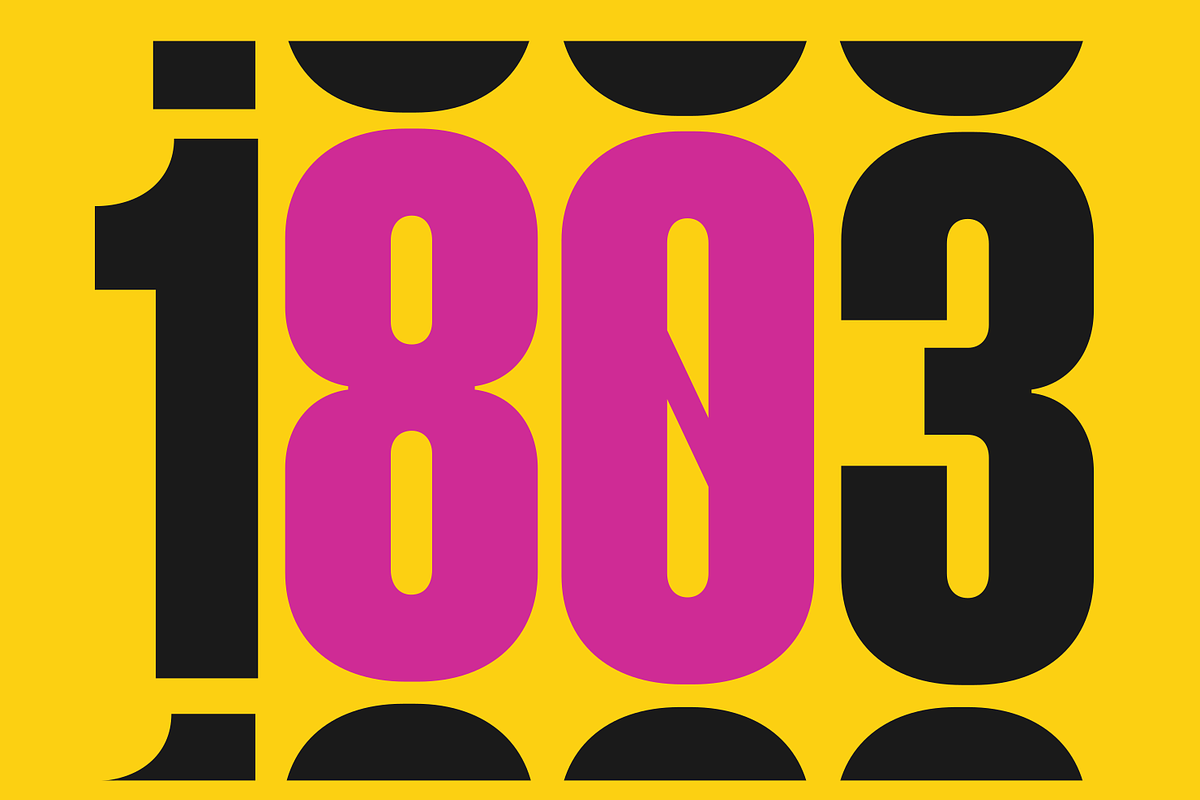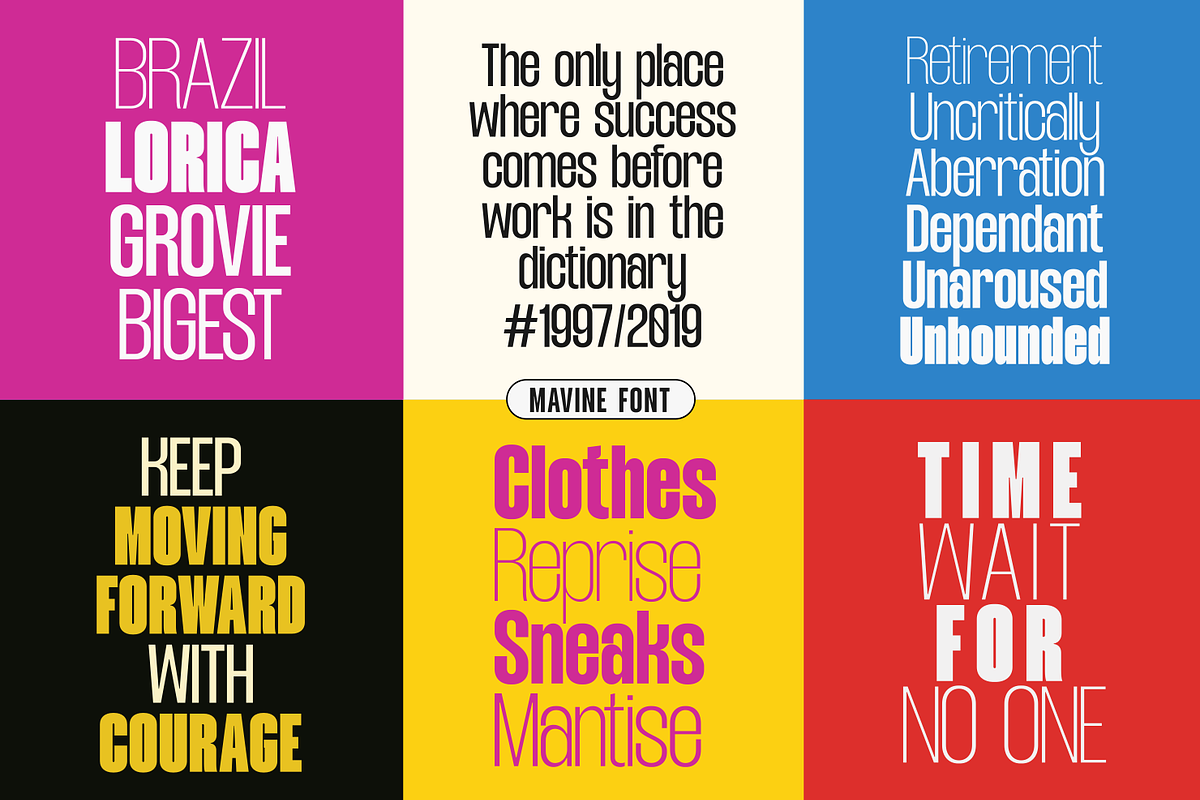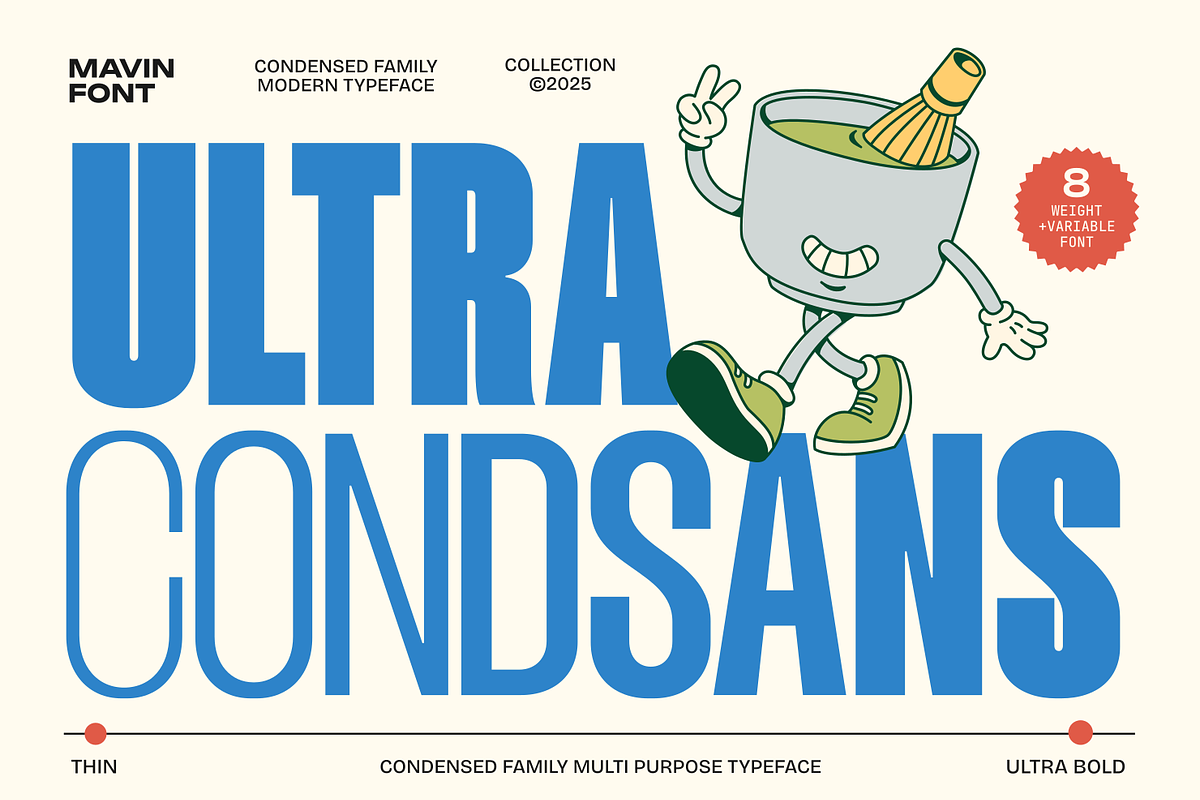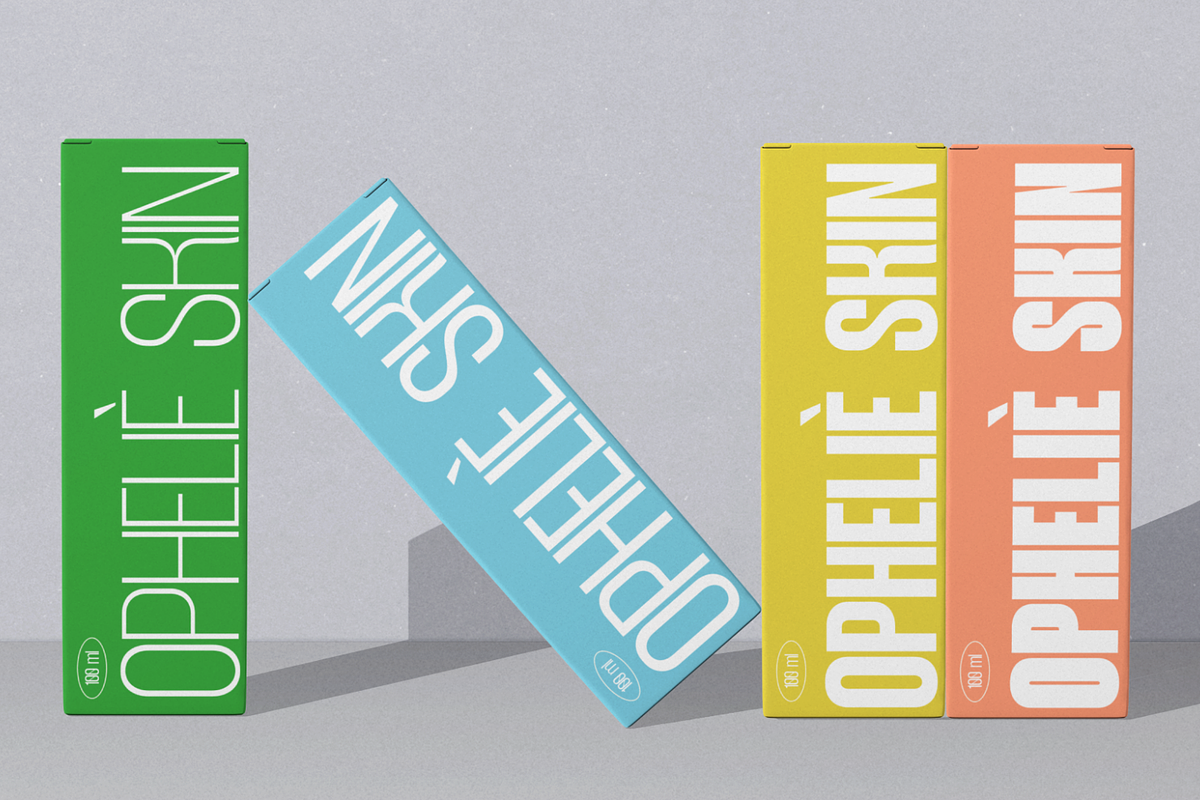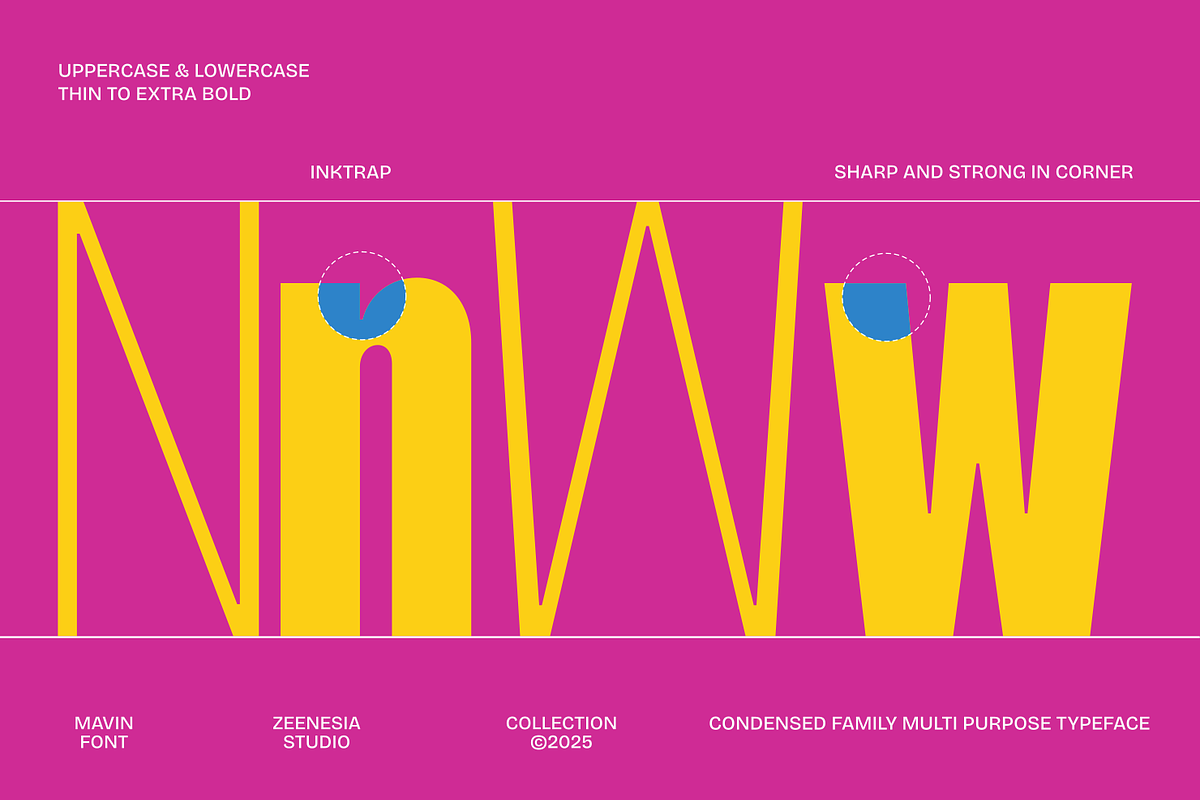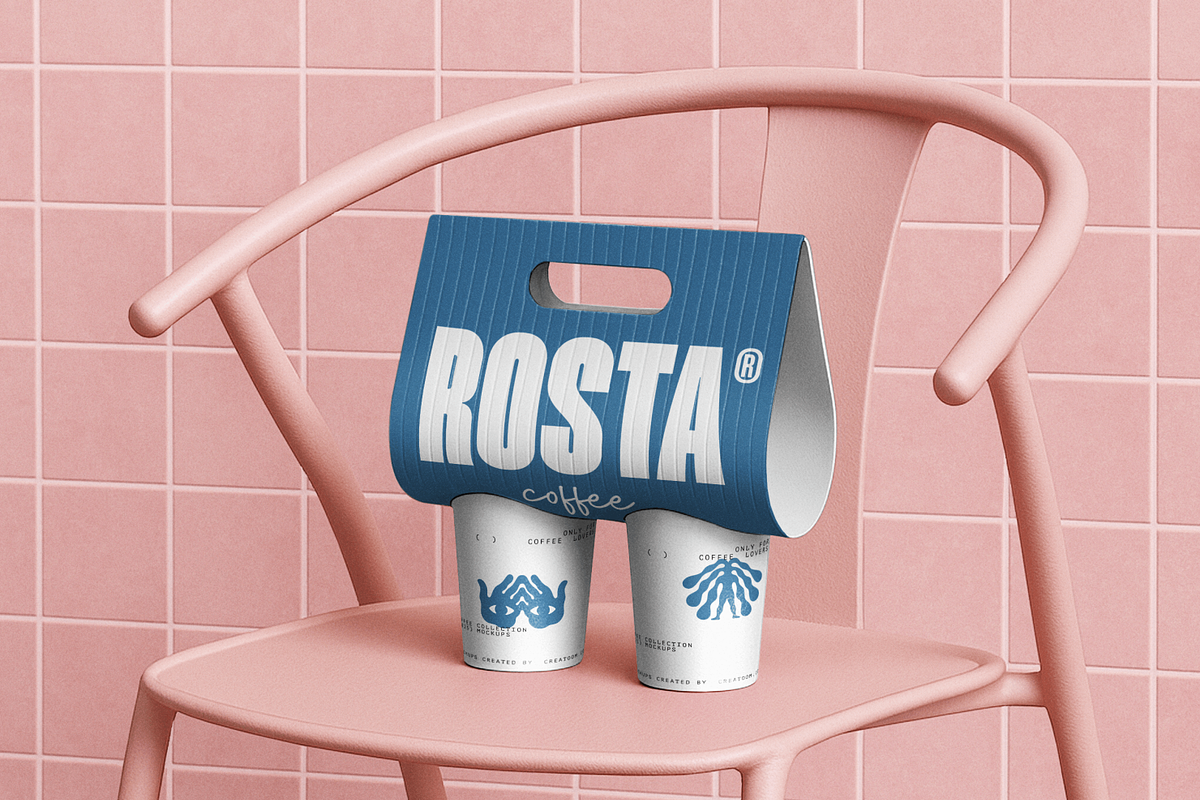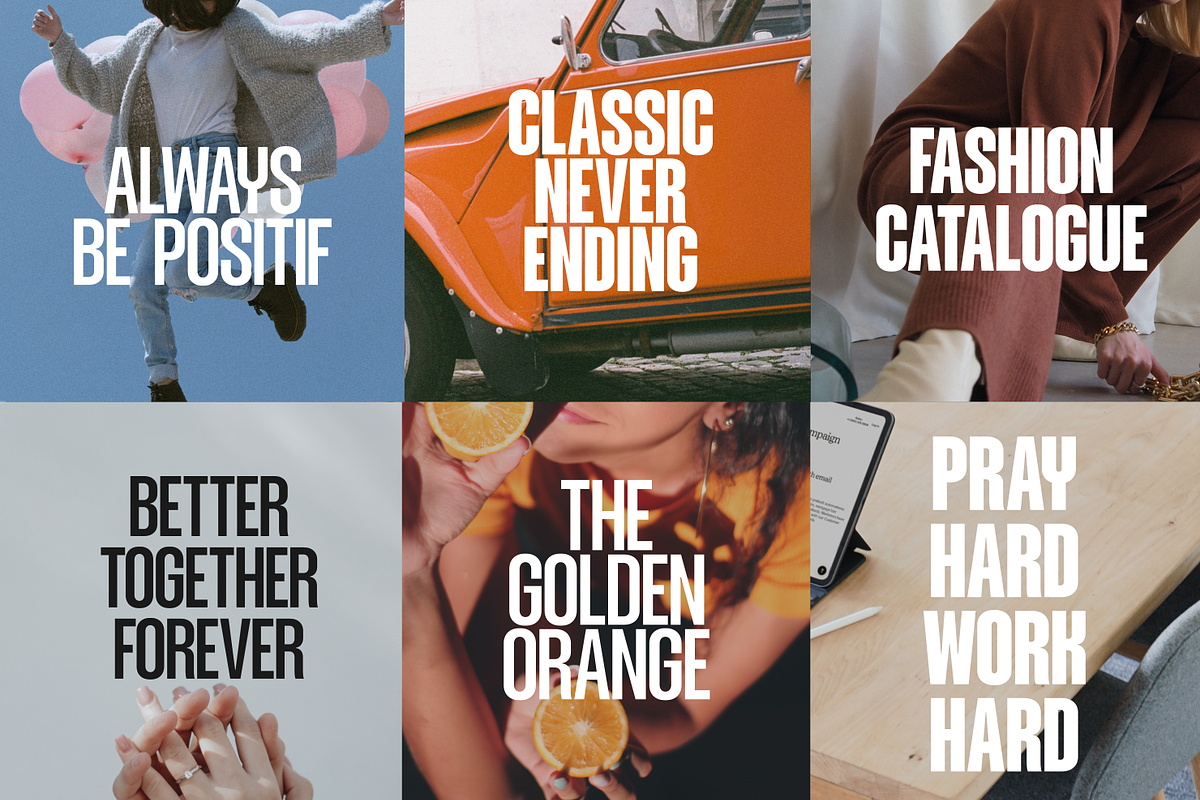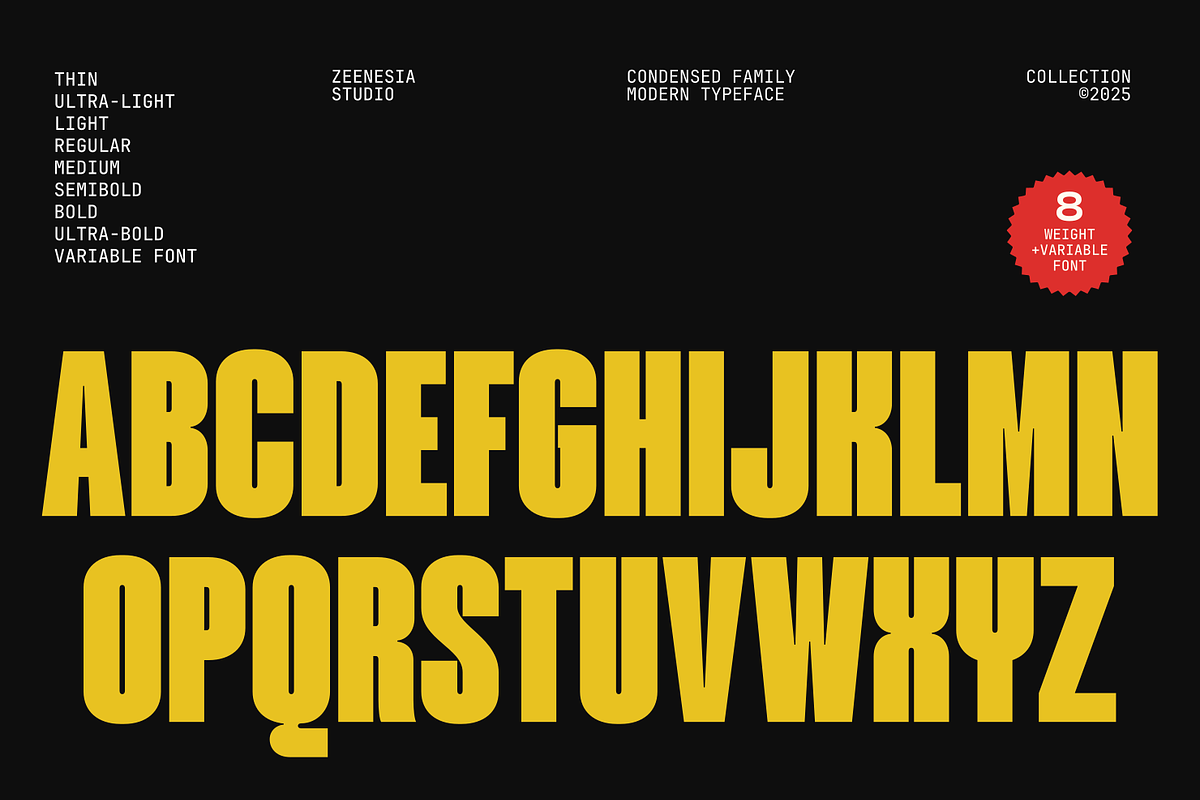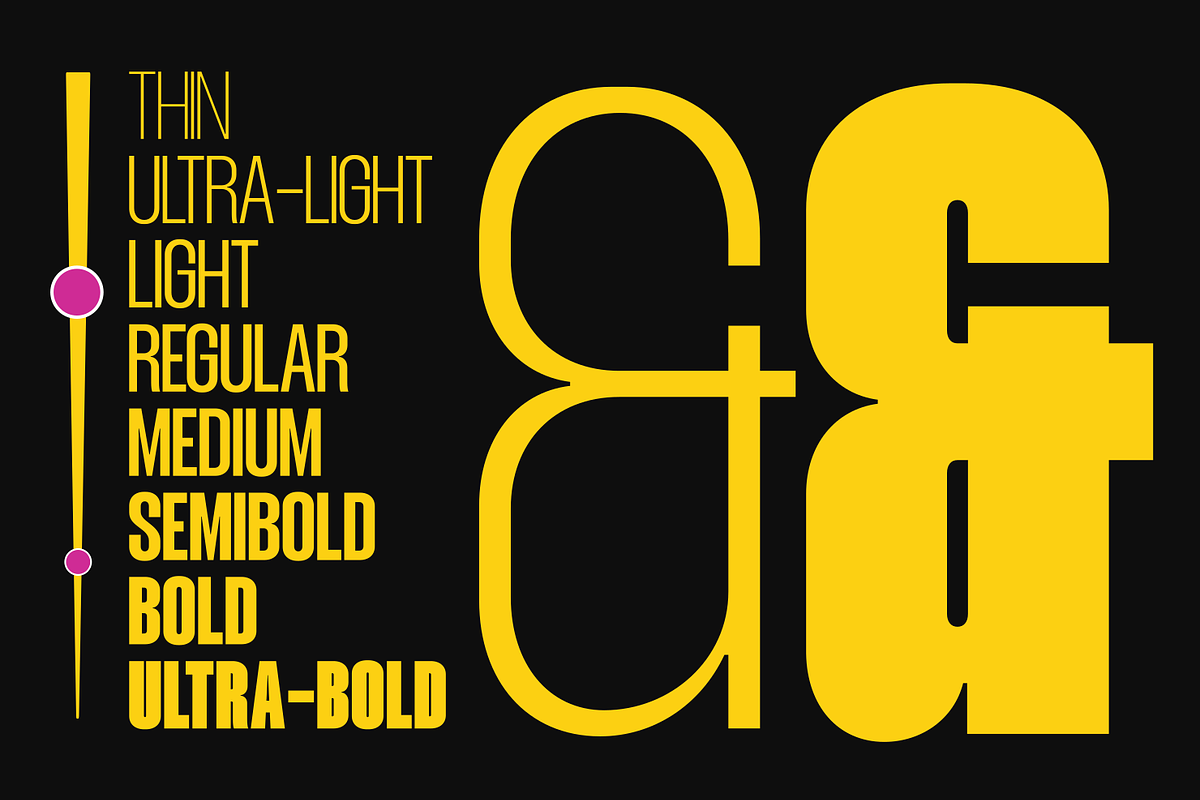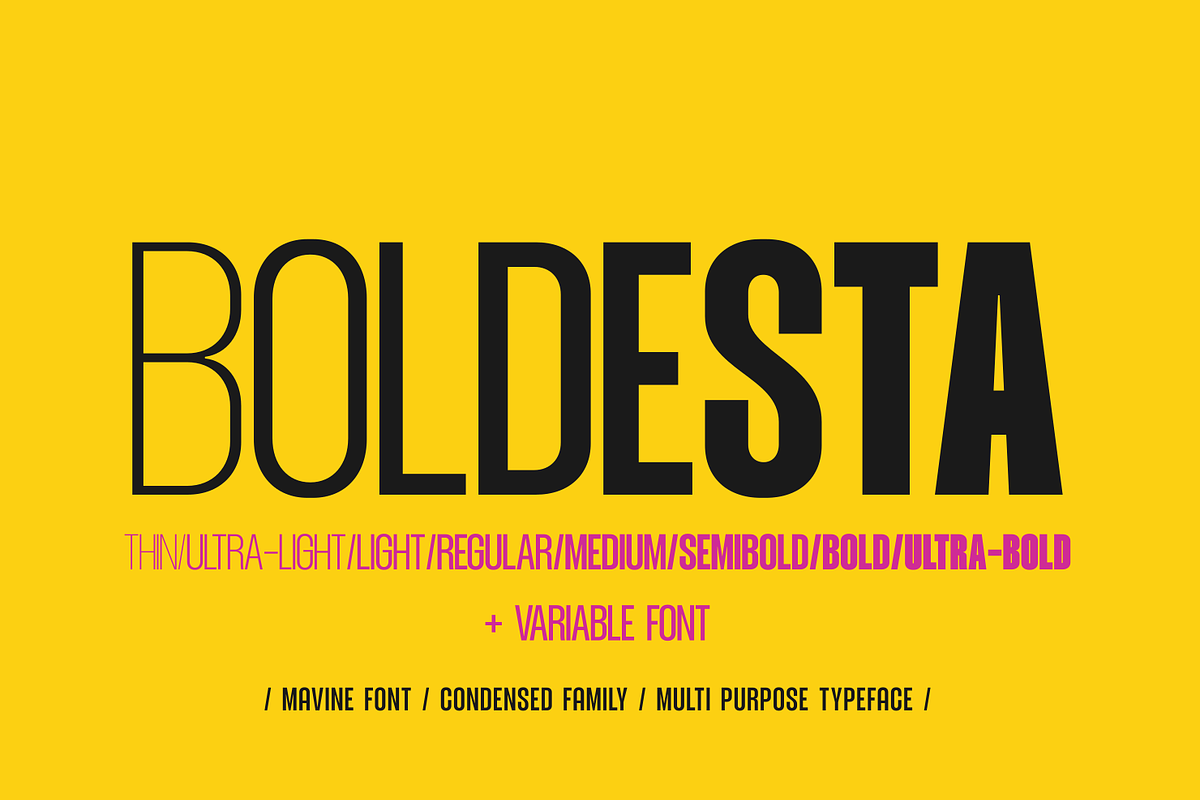
Mavine
Mavine is a bold and modern condensed typeface family designed for powerful visual impact. With its tall proportions, sharp geometry, and confident personality, Mavine delivers maximum presence in minimal horizontal space. This type family comes with 8 expressive weights — from Thin to Ultra-Bold — plus a versatile Variable Font, giving you full control over contrast, width, and visual intensity. Whether you're creating headlines, posters, branding, editorial layouts, or digital interfaces, Mavine adapts effortlessly to any creative direction. Its clean condensed form makes it highly functional, while its strong character ensures every word feels striking, energetic, and unmistakably modern. Perfect for designers who want a typeface that combines efficiency with attitude. Ideal for branding, posters, advertising, and editorial design What’s Included : - Mavine Thin, Extra Light, Light, Regular, Medium, Semi Bold, Bold, Extra Bold (OTF/TTF) - Mavine Variable Font - Standard glyphs & Ligature - Multilingual - Web Font - Works on PC & Mac Simple installations Mavine is your go-to font for delivering bold statements with precision and style. We hope you enjoy the font, please feel free to comment if you have any thoughts or feedback. Thanks for purchasing and glad to help you!